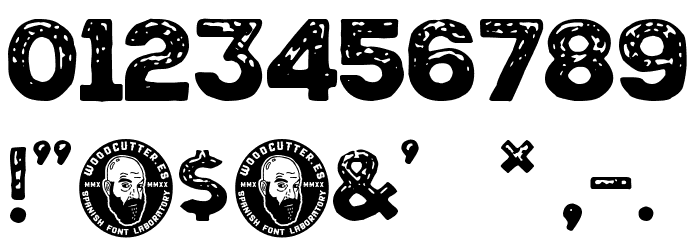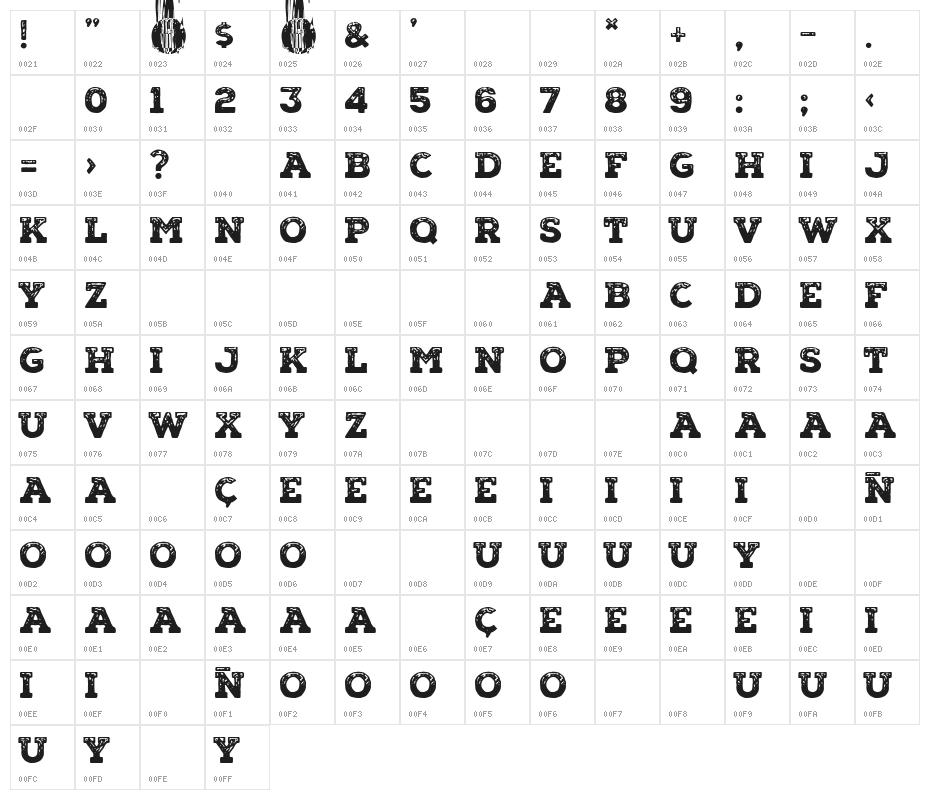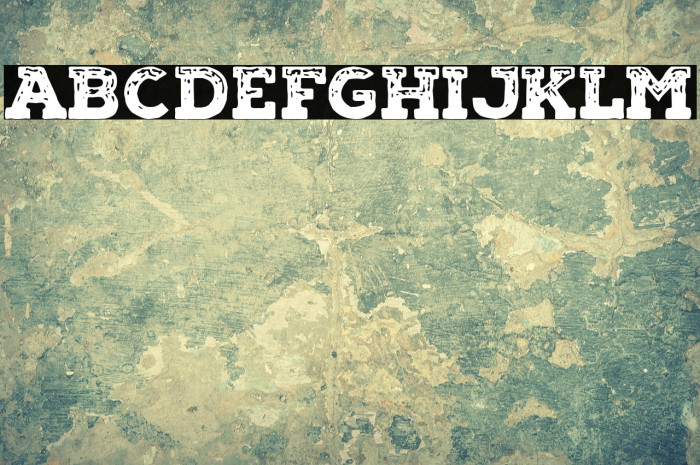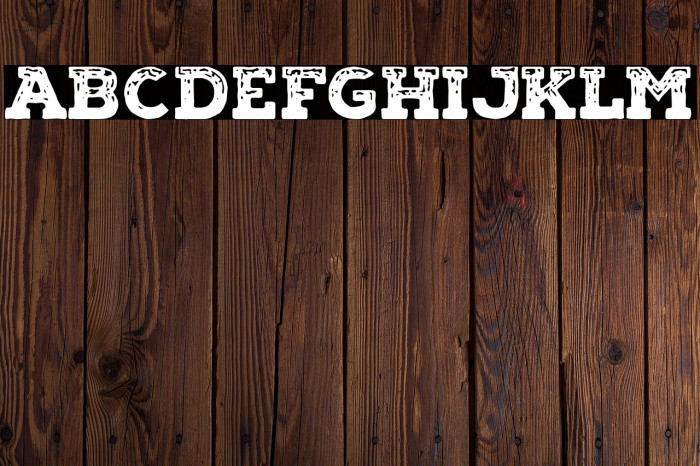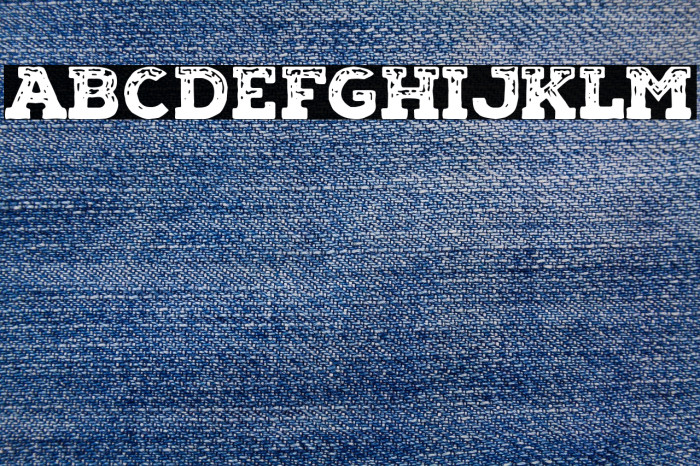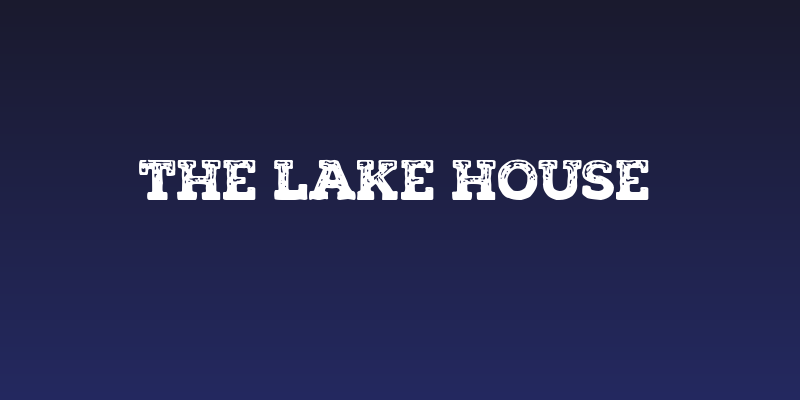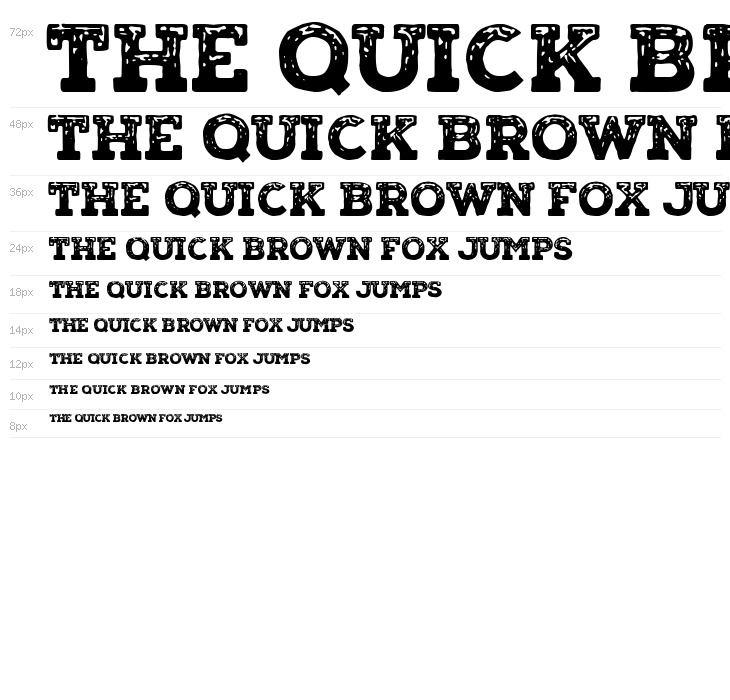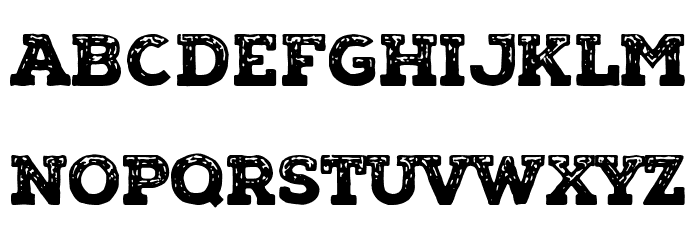
The Lake House Font
The Lake House Description
This font features a bold and rugged design with a distressed texture that gives it a vintage and worn appearance. The characters are thick and sturdy, with a slab serif style that adds to its robust look. The uppercase letters are prominent and commanding, while the lowercase letters maintain the same boldness, ensuring consistency across the typeface. The numbers and special characters follow the same distressed and bold aesthetic, making them suitable for impactful designs. The texture within the characters adds a unique touch, making it ideal for projects that require a rustic or handcrafted feel.
| Proposed Projects | Ideal for vintage-themed posters, logos, branding projects, and packaging designs that require a rustic or handcrafted look. |